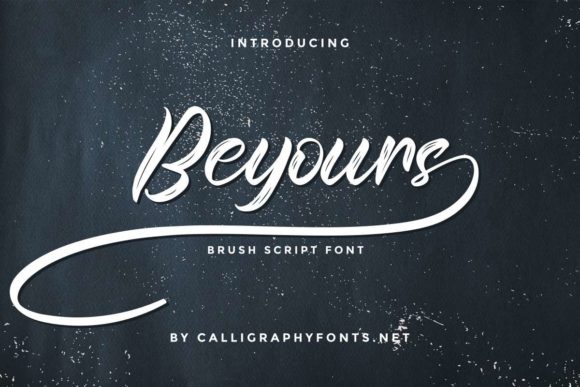
The Elusive Font: A Designer’s Quest for the Perfect Handwritten Style
I’ll never forget the countless hours I spent searching for the perfect font for a client’s branding project. The brief was simple: a delicate, elegant, and handwritten font that would elevate their logo and stationery. I scoured the internet, tried out dozens of fonts, but nothing seemed quite right. That was until I stumbled upon Beyours Font. ✨
Beyours Font: A Delicate and Elegant Handwritten Style
Beyours is a beautiful, handwritten font that exudes a sense of casual elegance. Its delicate strokes and refined lines make it perfect for a variety of design projects, including branding, logos, stationery, business cards, flyers, and more. With its unique character, Beyours is sure to brighten up your designs and leave a lasting impression. ✅
- ✨ Delicate and elegant handwritten style
- ✅ Perfect for branding, logos, and stationery
- 💫 Unique character that adds a touch of sophistication to designs
- 🎨 Highly versatile and can be used for a variety of design projects
- 🤔 Limited availability of stylistic alternates
- ⚠️ May not be suitable for very large or bold designs
One of the standout features of Beyours is its support for OpenType features and glyphs. These features allow you to add more character and personality to your designs. For example, you can use stylistic alternates to create a more informal or playful look, or use glyphs to add decorative elements to your text.
The Designer Behind Beyours: A Backstory
Beyours was designed by a talented typographer who wanted to create a font that would capture the essence of handwritten elegance. With a passion for calligraphy and lettering, the designer spent countless hours perfecting the font, ensuring that every detail, from the delicate strokes to the refined lines, was just right.